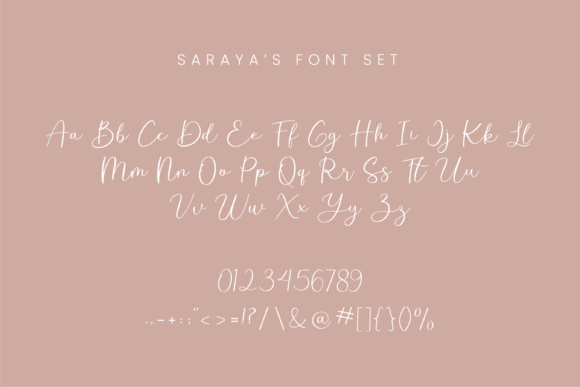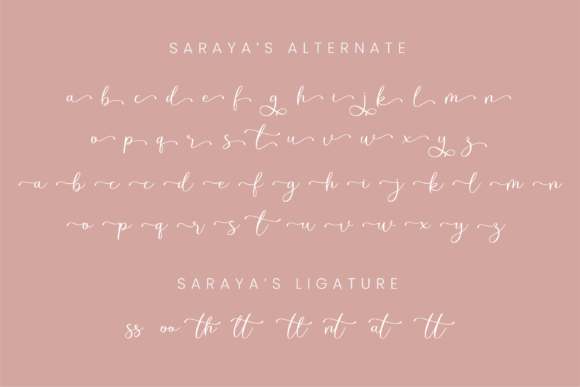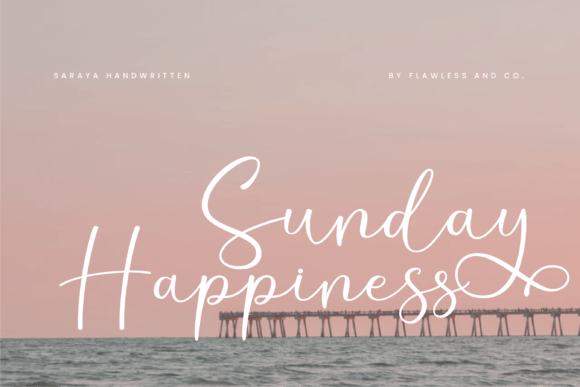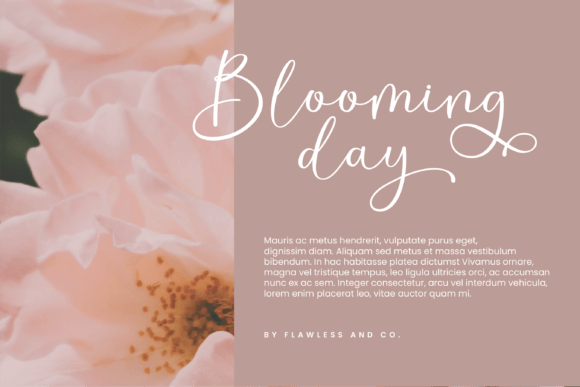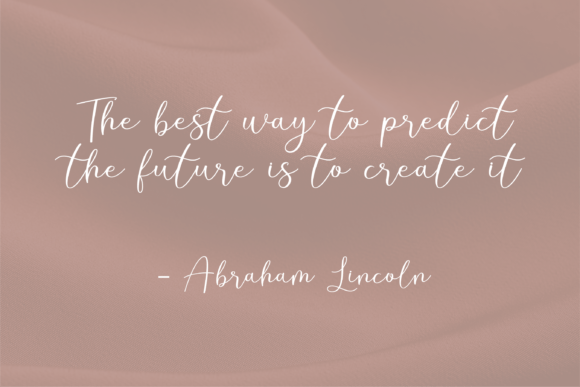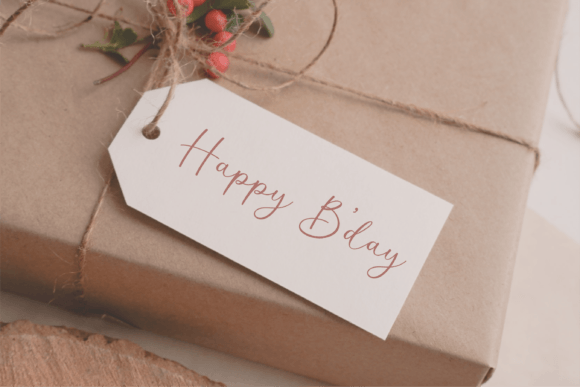
Introduction to Saraya Font
Saraya is a beautiful script handwritten font that exudes sweetness and girly charm designed by flawless and co.
Its flowing curves and elegant strokes make it perfect for a variety of design projects, including wedding invitations, branding, logos, and social media graphics Keep in mind that the font is PUA encoded, meaning that you can access all delightful glyphs and swashes effortlessly.